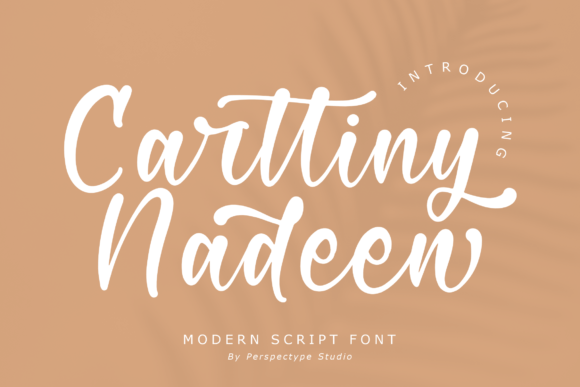
Behold Carttiny Nadeen, a script font family that captivates the essence of elegance and sophistication. Designed by the esteemed Perspectype, this flowing handwritten font invites you to embark on a creative journey like no other. With its enchanting personality, Carttiny Nadeen is the perfect partner for your cherished projects, adding a touch of magic to every word you write.
Dive into the world of Carttiny Nadeen and let its graceful strokes ignite your imagination. Whether you're crafting heartfelt blog posts, designing enchanting social media graphics, or creating captivating website content, this font will elevate your words, making them dance off the page with an alluring allure.
Carttiny Nadeen's timeless style transcends trends, ensuring that your designs remain captivating for years to come. Its distinct character adds a layer of depth and personality to your creations, allowing your message to shine through with unwavering brilliance.
With Carttiny Nadeen, you have the power to transform ordinary words into extraordinary expressions. Its fluid lines and elegant curves lend a touch of sophistication to any project, captivating your audience and leaving them spellbound by your creative vision.
Embrace the beauty of Carttiny Nadeen and elevate your designs to new heights. Let its enchanting strokes carry your words to new frontiers, where creativity flourishes and imagination knows no bounds. Let Carttiny Nadeen be your font of choice and witness the wonders it unfolds in your hands.